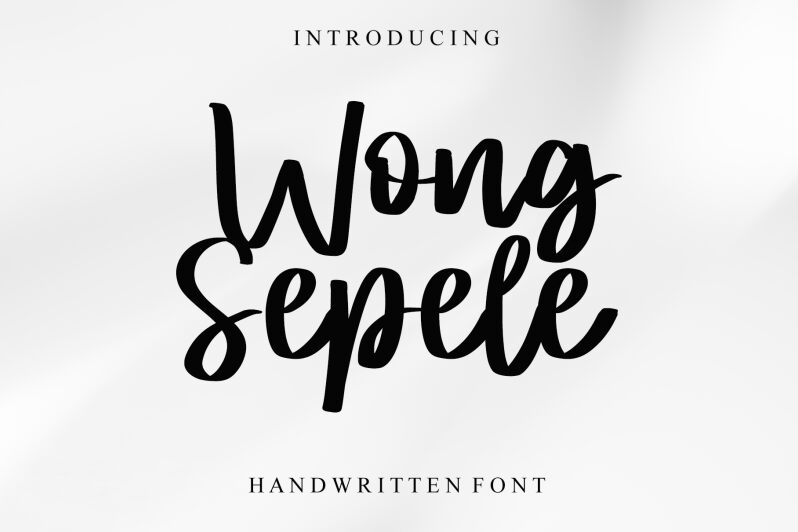
Wong Sepele font by Letterafa Studio is a handwritten font with a casual and friendly style. Its expressive and engaging characters make this typography design particularly cosy for young audiences. Soft curves, slightly rounded endings, and irregular strokes add to the fonts crafted nature while sticking to an overall harmonious repetition.